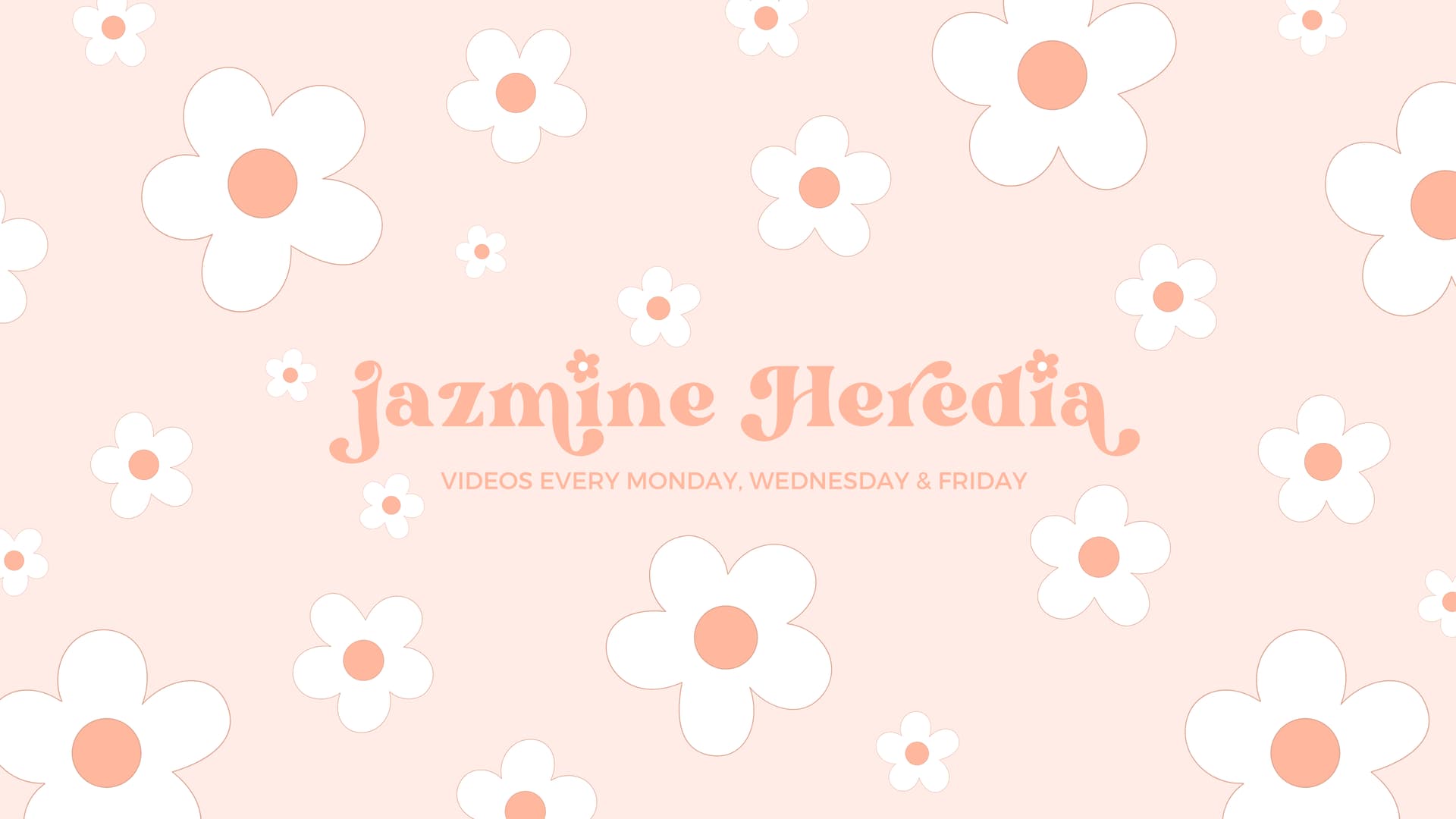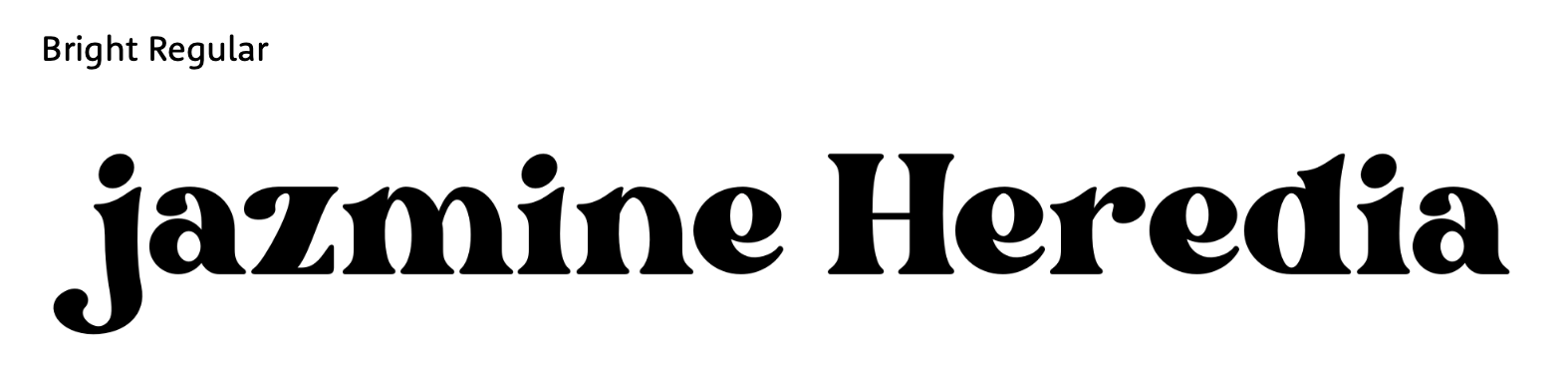
Font name please
JAZMINE HEREDIA - YouTube Banner 3
Any ideas what this font is? Thank you
Bright Regular with swash alternates and manually added flowers on the iās.